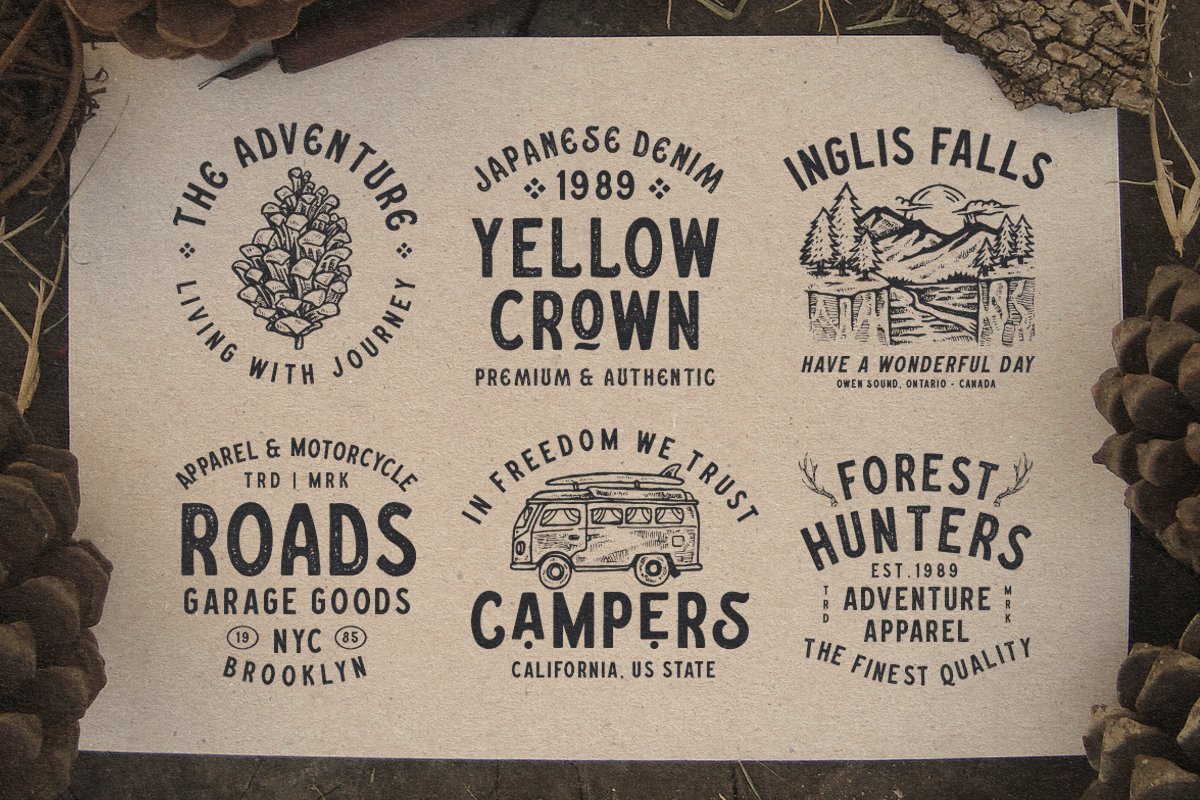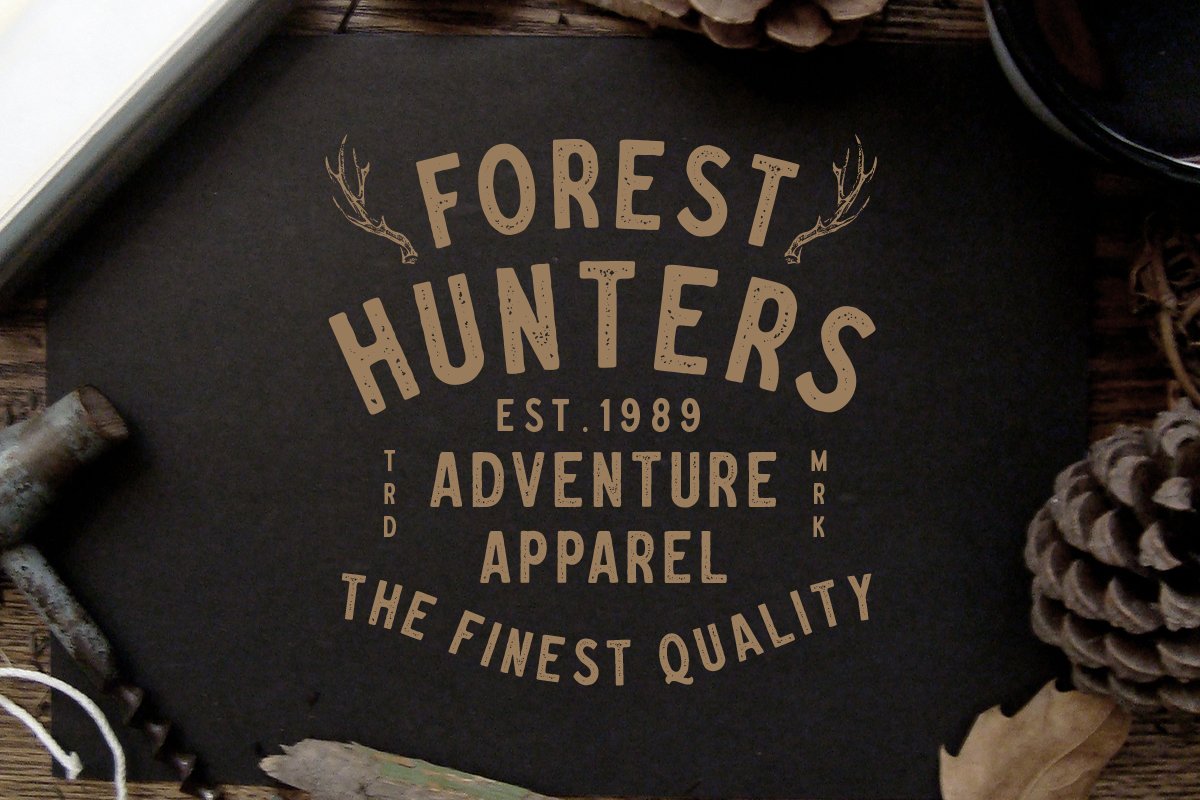
About the Ganiser Sans Extra Premade Logo
Ganiser Sans is a vintage display typeface with the touch of nostalgic feel, This typeface has unique looks and strong character with extra premade logo as bonus, This font perfectly made to be applied especially in logo, and the other various formal forms such as invitations, labels, magazines, books, greeting / wedding cards, packaging, fashion, make up, stationery, novels, labels or any type of advertising purpose